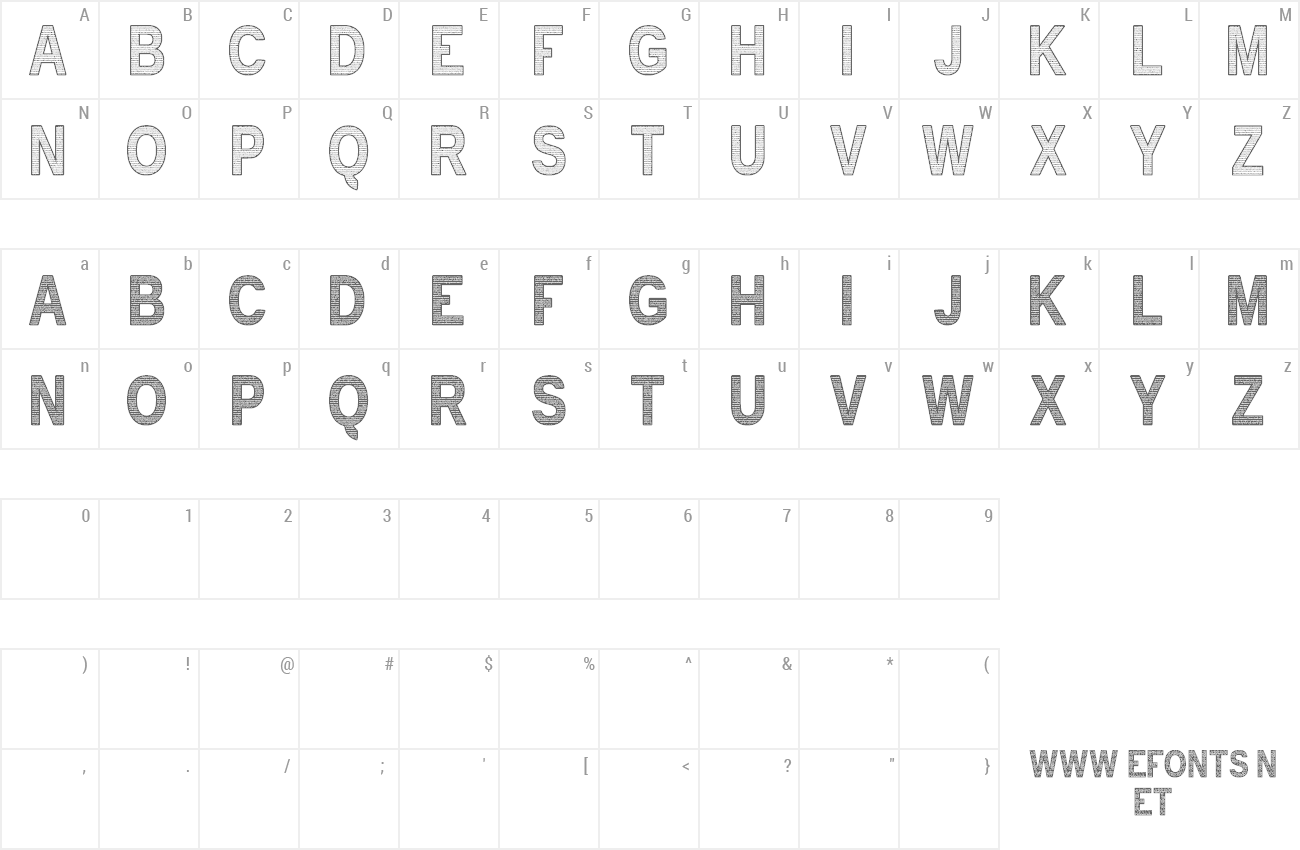
Because of the detail that has typography should be used in large sizes =) Direct link: http://truefonts.blogspot.com/2013/01/text-inside-tfbttf.html My blog: http://truefonts.blogspot.com/ Thanks for download! |